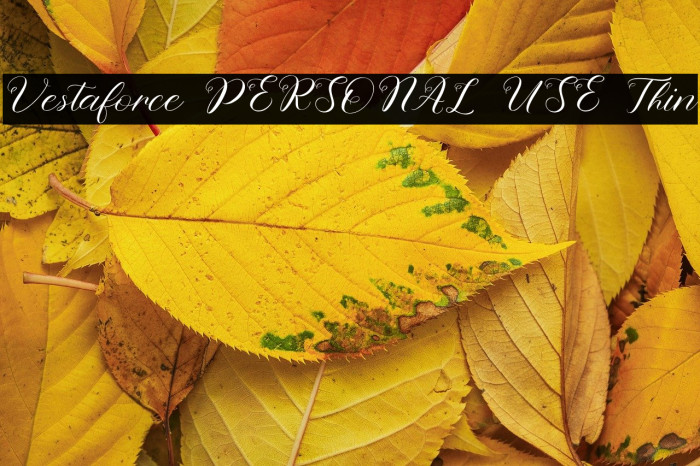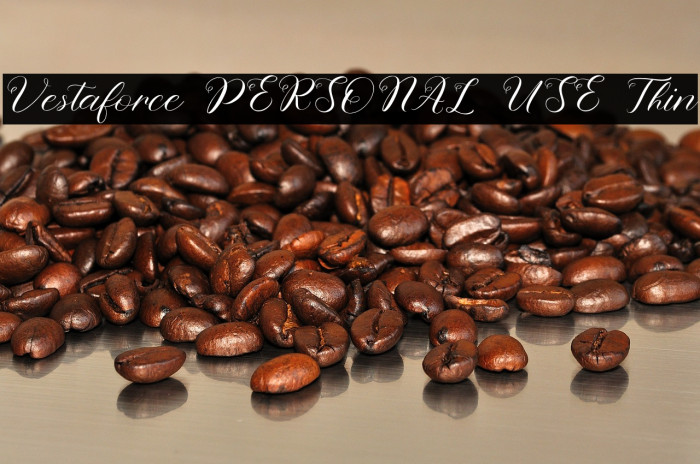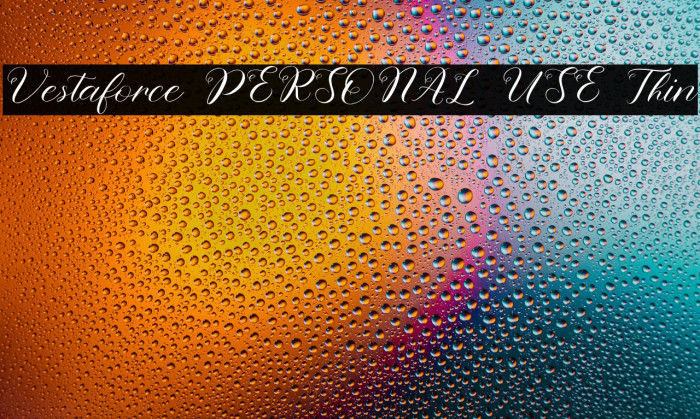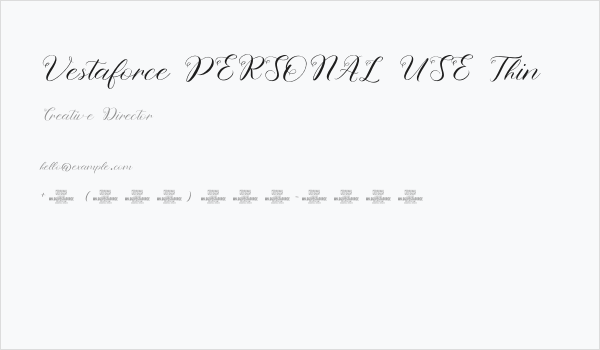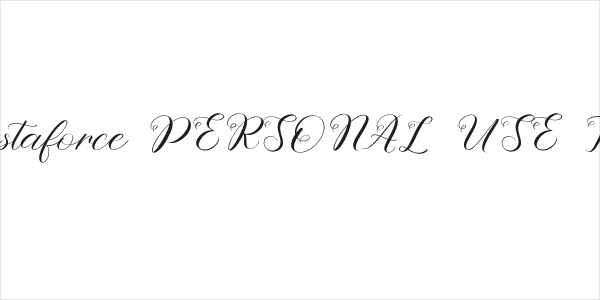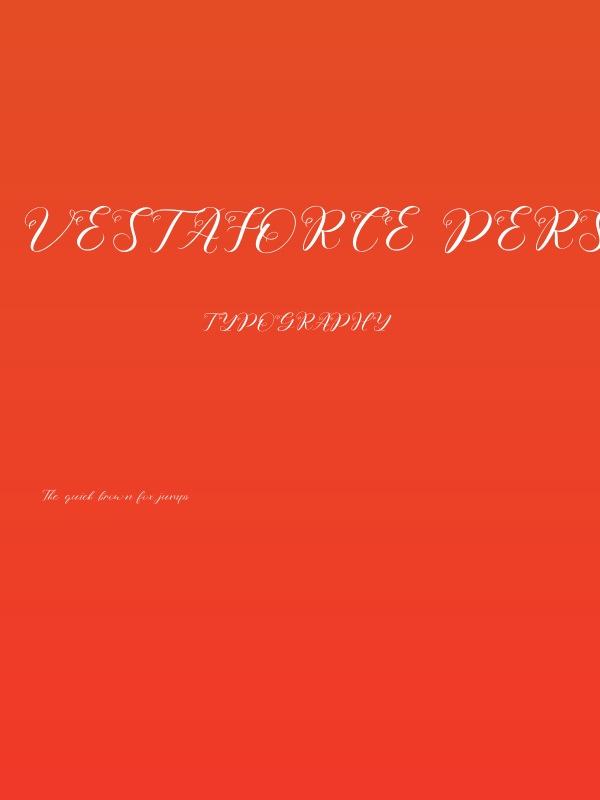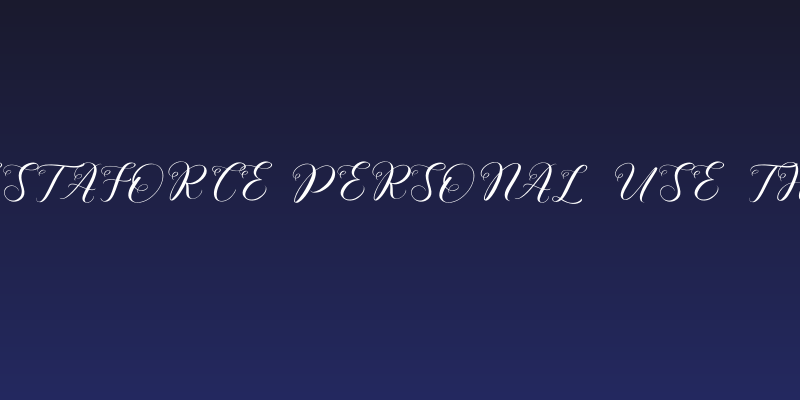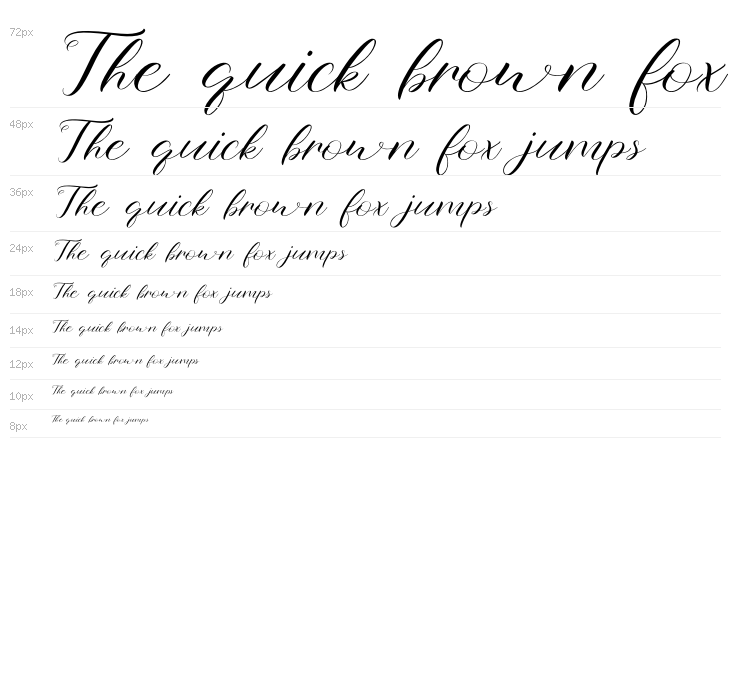
Vestaforce PERSONAL USE Thin Font
Vestaforce PERSONAL USE Thin Description
This elegant script font features a flowing, cursive style with intricate loops and swashes that give it a sophisticated and decorative appearance. The characters are connected, creating a seamless and fluid look. The uppercase letters are particularly ornate, with elaborate flourishes that add a touch of luxury and grace. The lowercase letters maintain a consistent style, complementing the uppercase with their own subtle curves and loops. The font is thin, emphasizing its delicate and refined nature, making it suitable for elegant and formal designs.
Use CaseLogos, Invitations, Decorative Headlines
Proposed ProjectsIdeal for wedding invitations, luxury branding, elegant stationery, and decorative headlines.